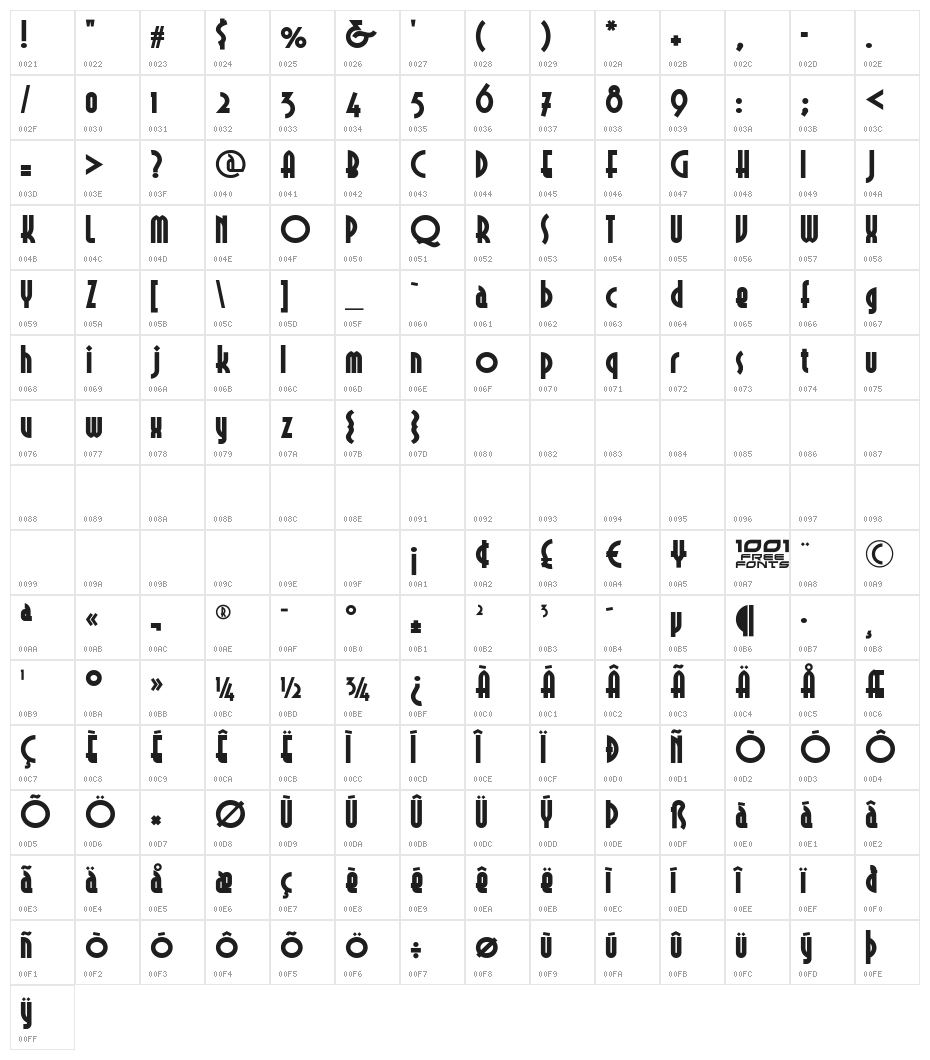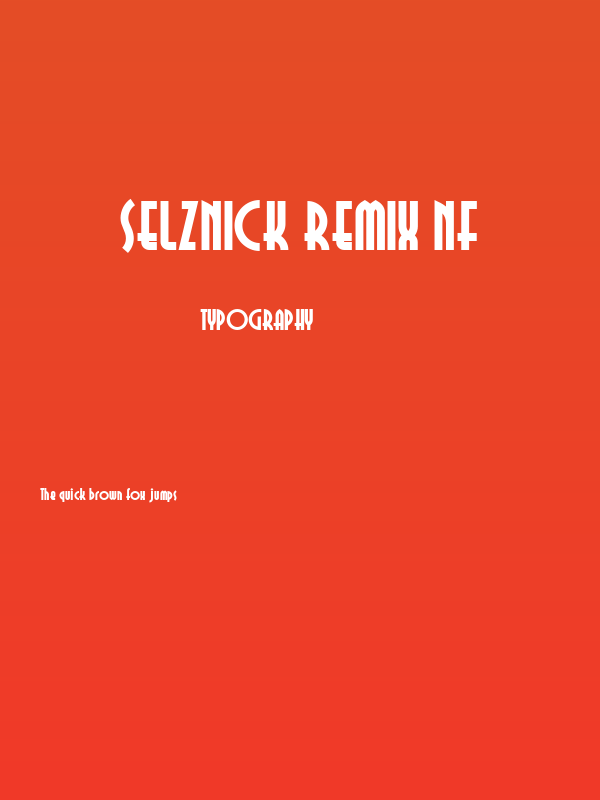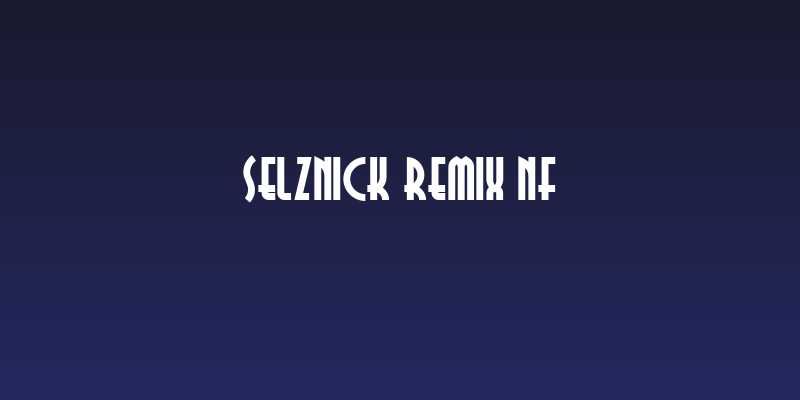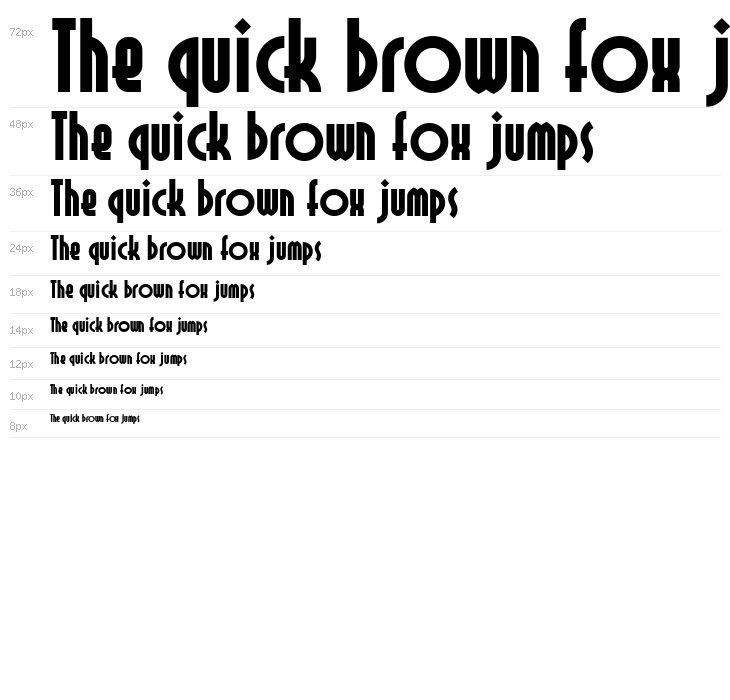
Selznick Remix NF Font
Selznick Remix NF Description
This font features a bold and striking design with a strong geometric influence. The characters are crafted with a mix of sharp angles and smooth curves, creating a dynamic and eye-catching appearance. The uppercase letters are particularly distinctive, with unique shapes that give the font a modern and artistic flair. The lowercase letters maintain a consistent style, complementing the uppercase with their own unique forms. Numbers and special characters are designed to match the overall aesthetic, ensuring a cohesive look across all text elements. This font is ideal for projects that require a bold statement and a touch of creativity.
| Proposed Projects | Ideal for posters, logos, branding, and any project that needs a bold, artistic touch. |